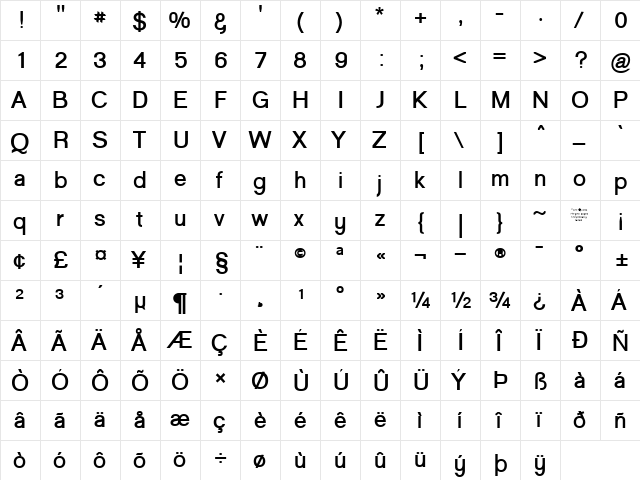
Goulong Bold Regular
Design Context for Goulong Bold Typeface
Goulong Bold is a composed and adaptable typeface that performs quietly and consistently across a wide range of design contexts. The heavy weight commands attention and anchors typographic hierarchies.
Pro Tip: Use Goulong Bold in both headline and body roles to test its range before committing to a single application.